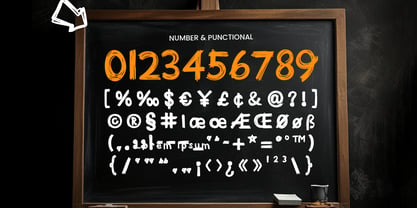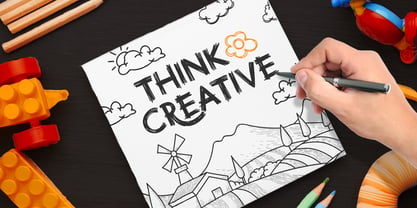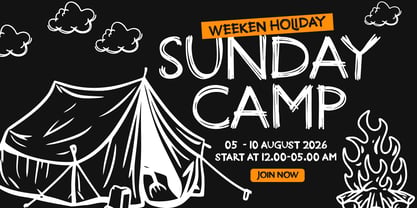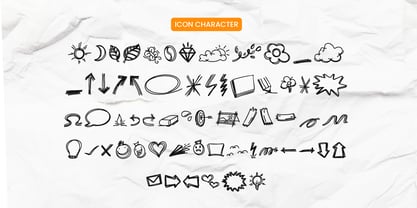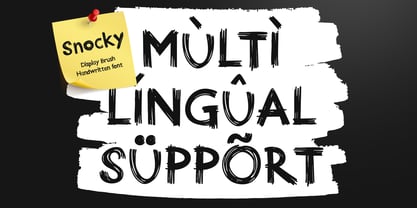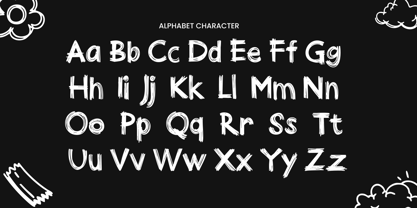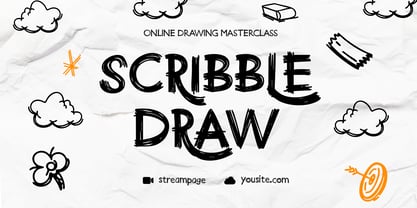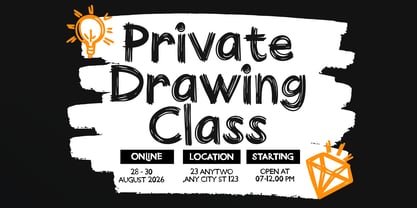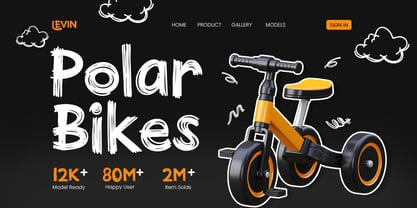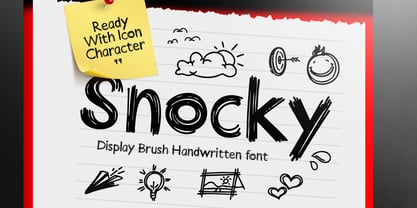
Snocky
by Sensatype Studio
The Snocky Font Family was designed by Zamroni Hamzah and published by Sensatype Studio. Snocky contains 3 styles and family package options.
SNOCKY is a scribble handwritten font that captures the charm of spontaneous sketching and playful doodles. With its uneven strokes, quirky curves, and hand-drawn texture, this font is perfect for adding personality and authenticity to your creative projects.
Designed to feel natural and expressive, SNOCKY works beautifully for kids’ materials, posters, social media graphics, branding accents, craft projects, and fun packaging. Every letter carries a lively, imperfect touch that makes your design feel more human, cheerful, and approachable.
Whether used for bold titles or small decorative notes, SNOCKY brings energy, creativity, and hand-crafted charm to both digital and print layouts.
SNOCKY – Scribble Handwritten Font Features
• Playful scribble-style handwritten lettering
• Available with 3 Different font: Regular, Bold and Icons
• Perfect for kids’ projects, packaging, posters, and doodle-themed designs
• Natural hand-drawn texture for authentic creative expression
• Friendly, fun, and expressive letterforms
• Uppercase, lowercase, numerals, and punctuation included
• OpenType features for creative design flexibility
Multilingual support for Afrikaans, Albanian, Asu, Basque, Bemba, Bena, Breton, Chiga, Cornish, Dutch, English, Estonian, Filipino, Finnish, Friulian, Galician, German, Gusii, Indonesian, Irish, Italian, Kabuverdianu, Kalenjin, Kinyarwanda, Luo, Luxembourgish, Luyia, Machame, Makhuwa-Meetto, Makonde, Malagasy, Manx, Morisyen, North Ndebele, Nyankole, Oromo, Portuguese, Quechua, Romansh, Rombo, Rundi, Rwa, Samburu, Sango, Sangu, Scottish Gaelic, Sena, Shambala, Shona, Soga, Somali, Spanish, Swahili, Swedish, Swiss, and more.
Add fun and creativity to every project with SNOCKY – the ultimate scribble handwritten font for playful and expressive design. ✏️✨